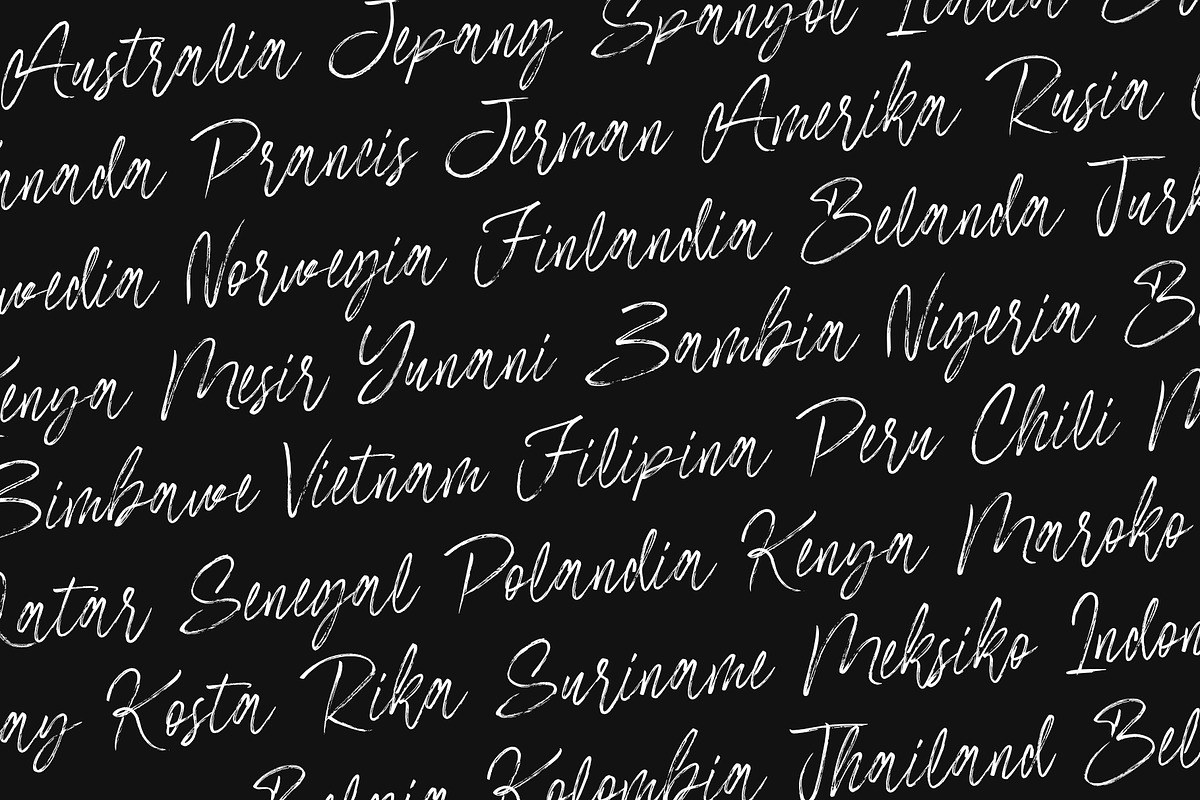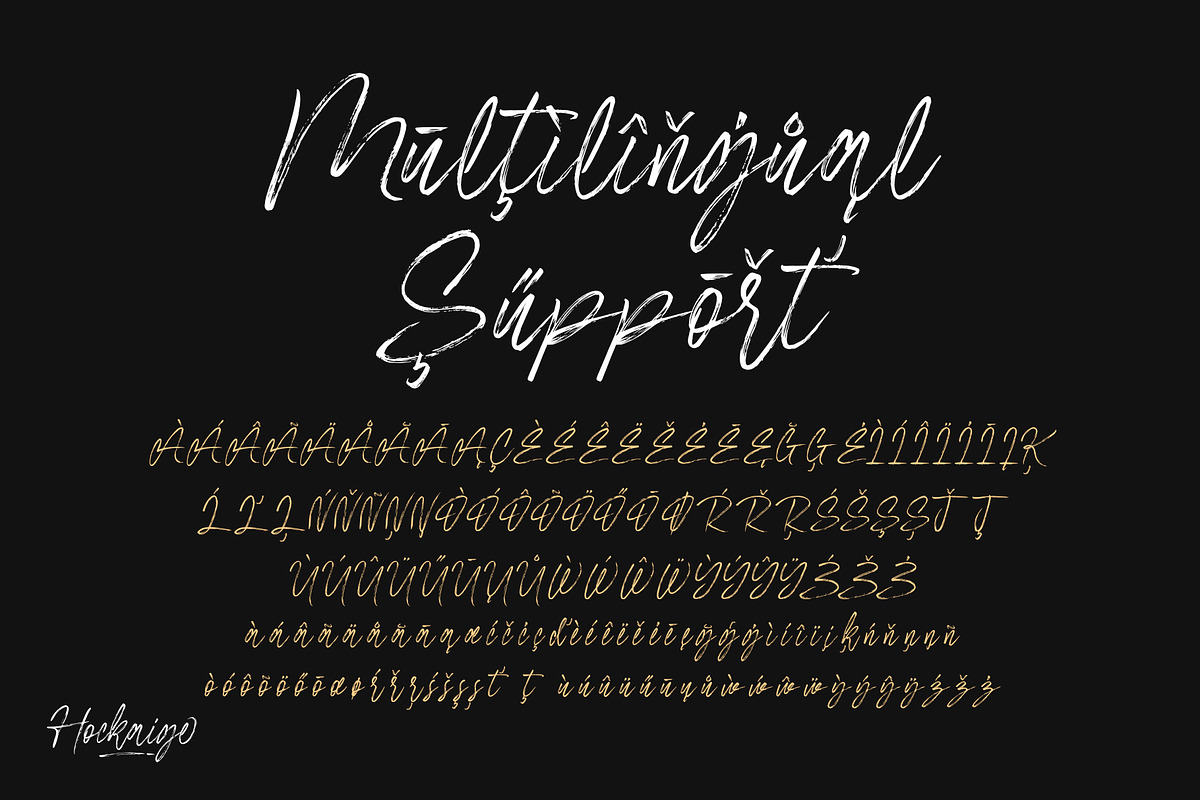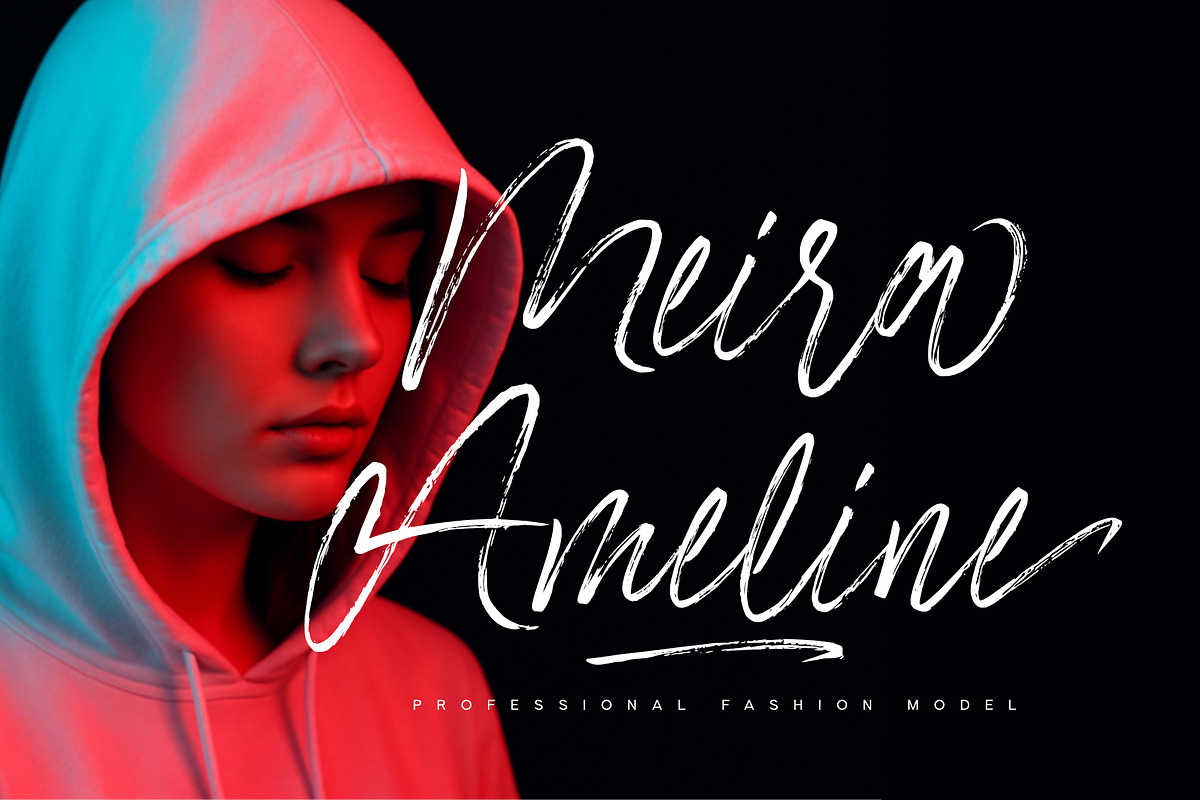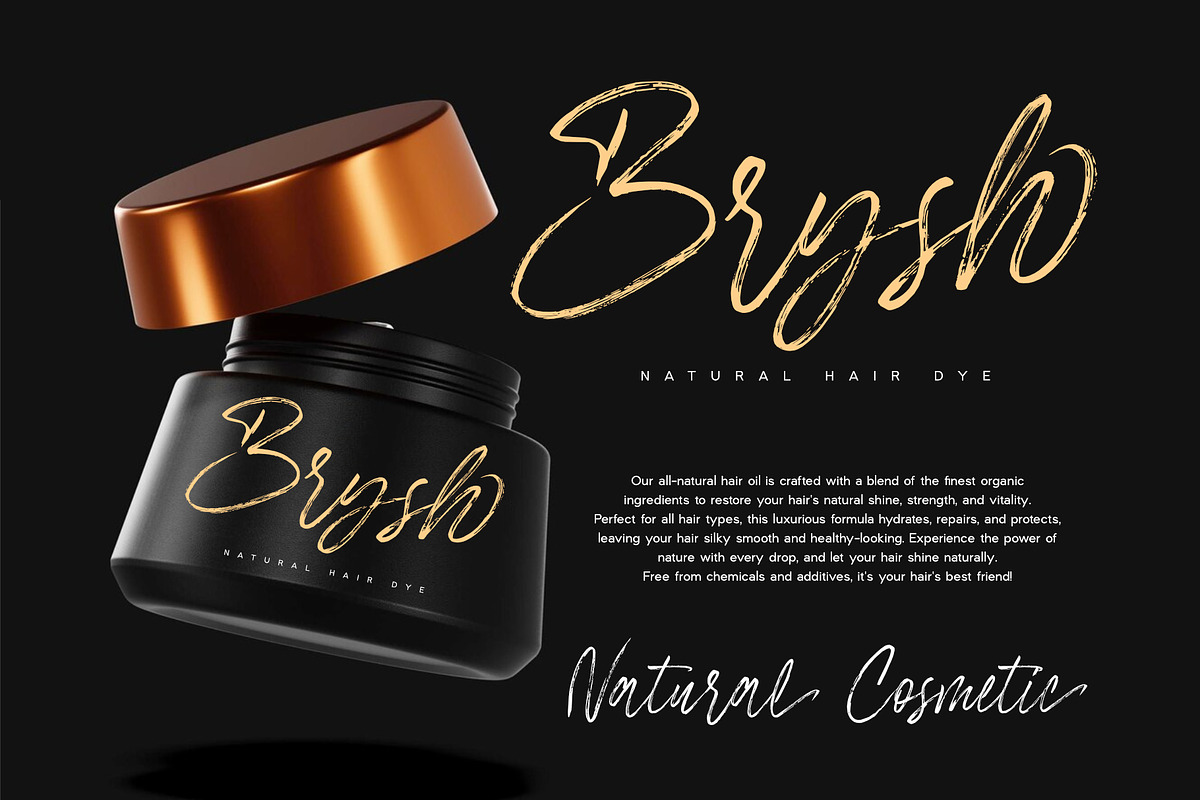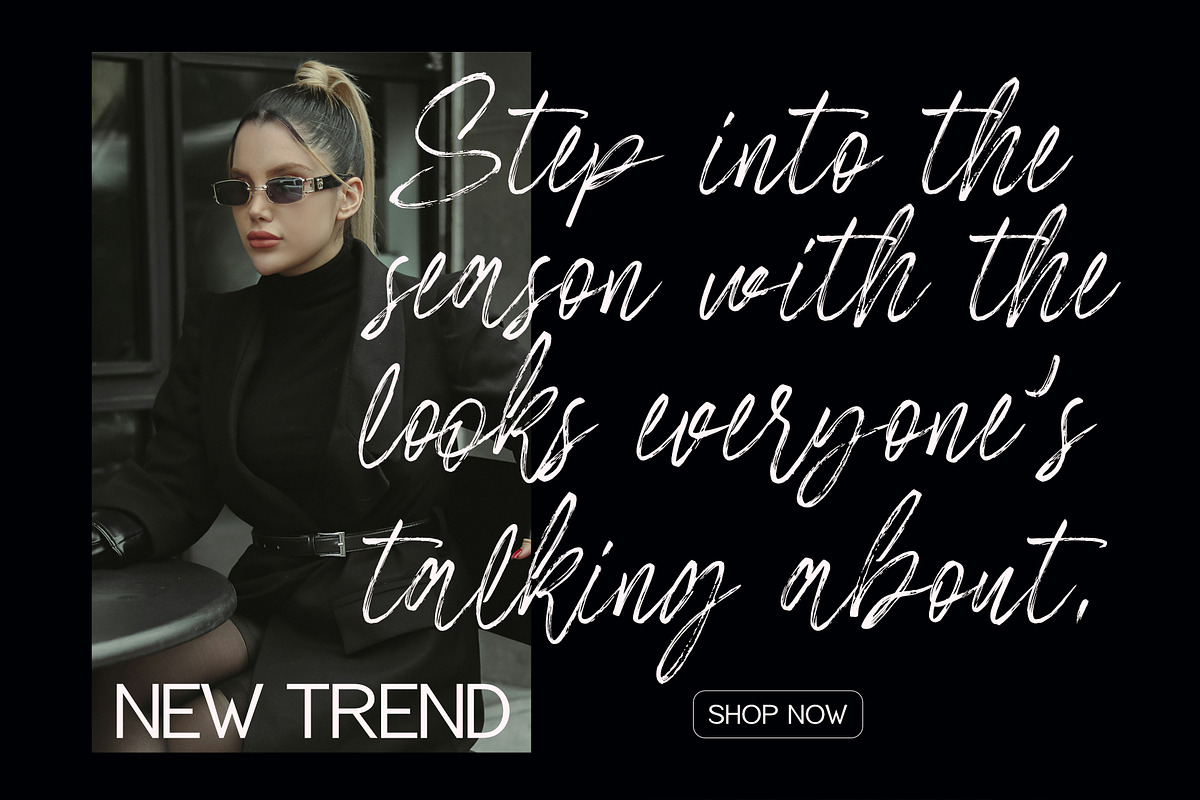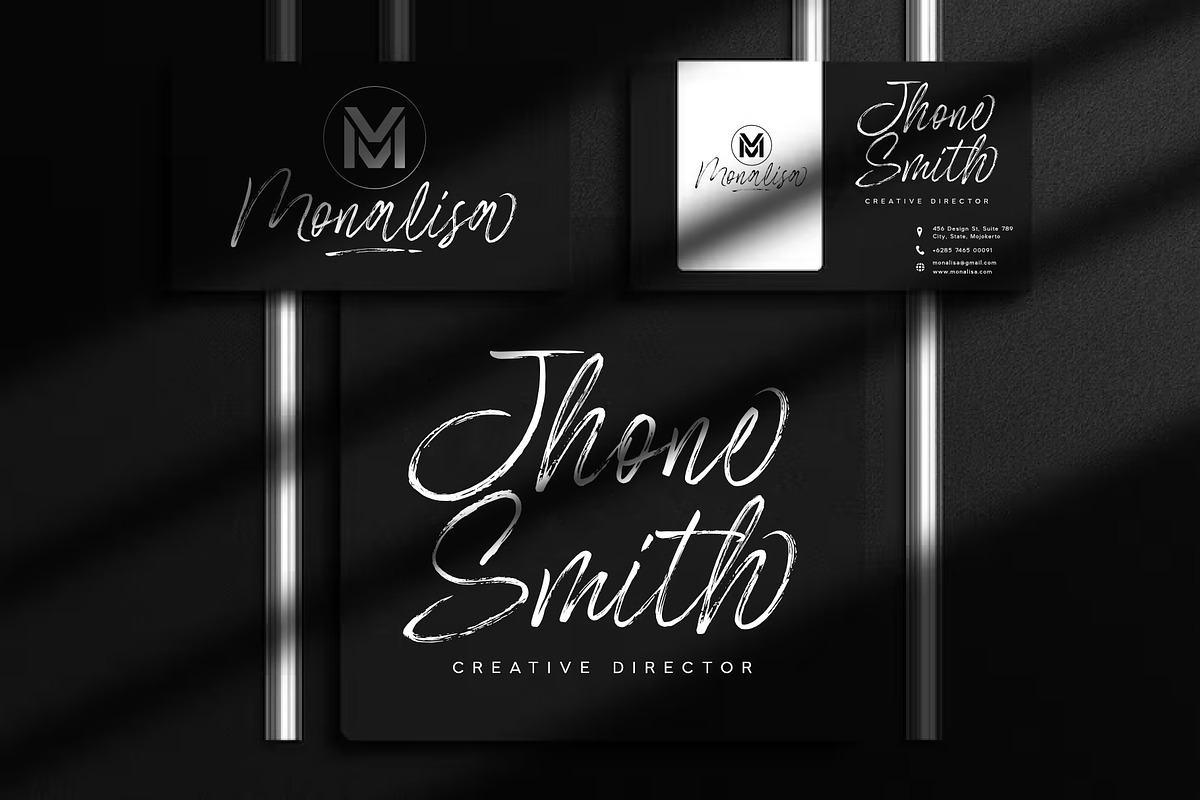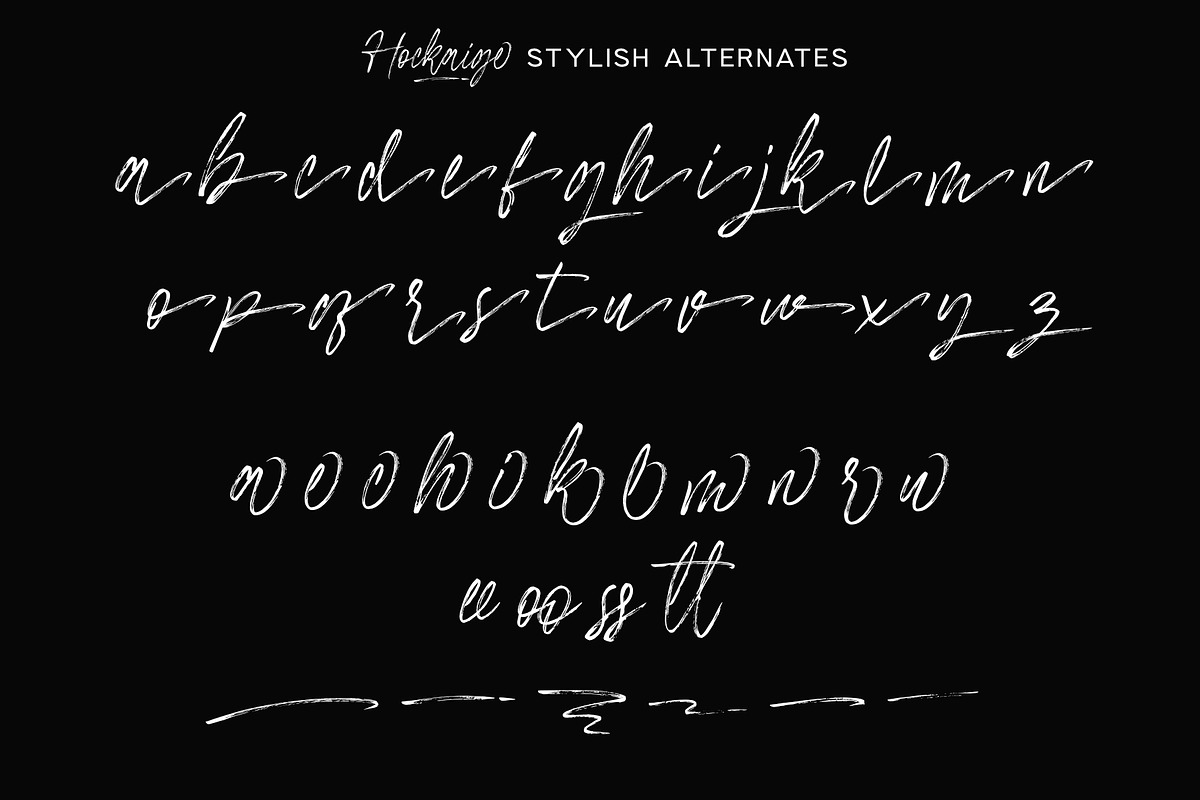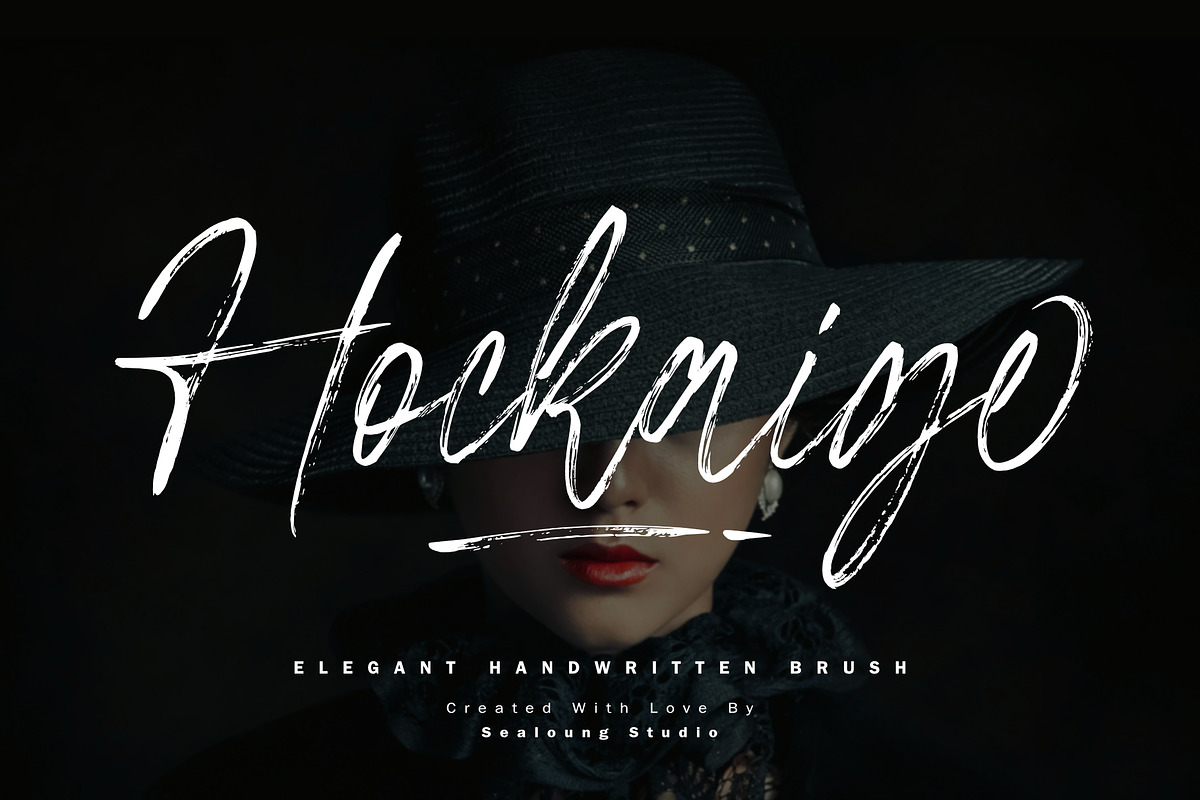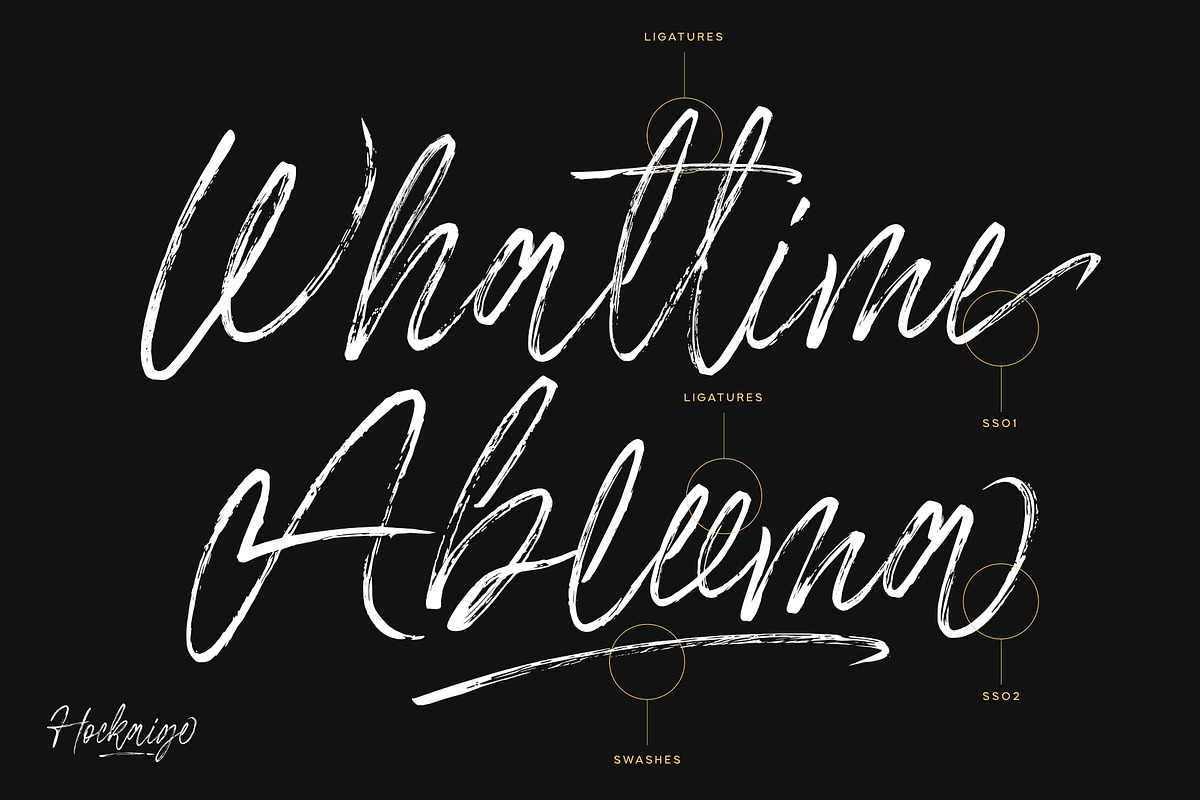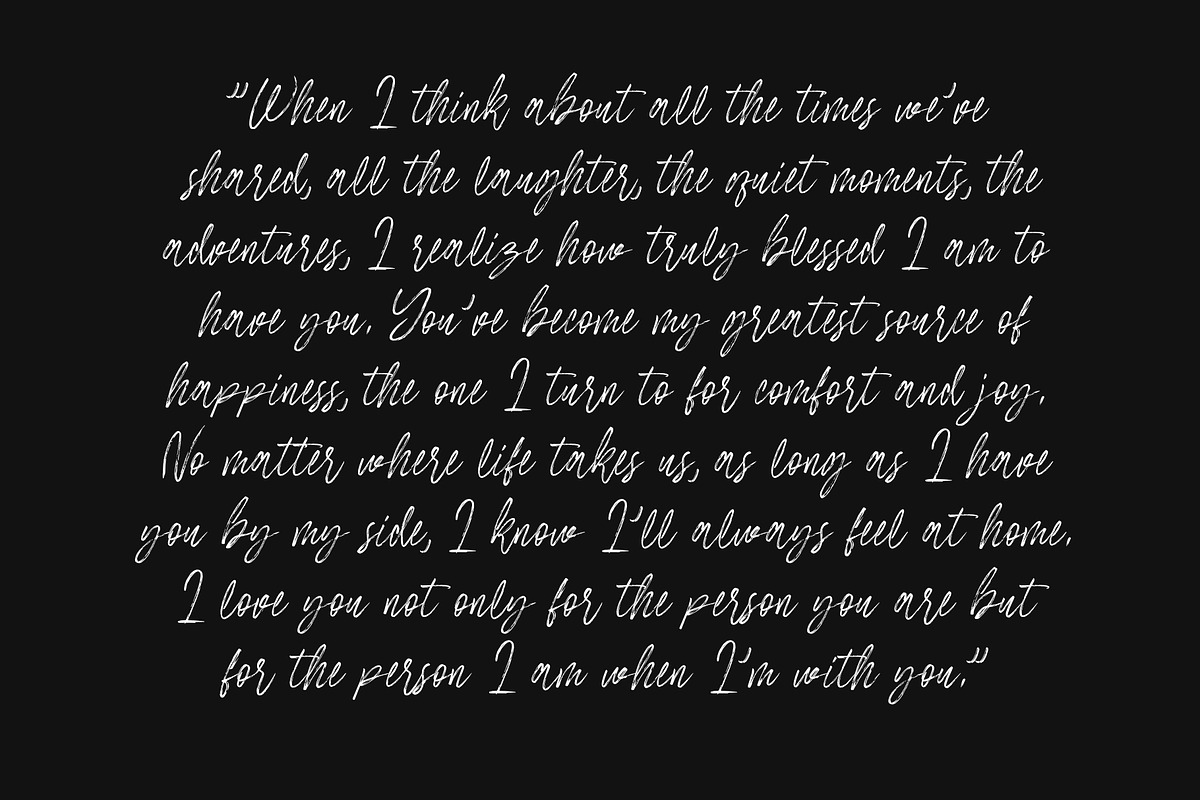
Hockaige - Elegant Handwritten Brush
Hockaige is an elegant handwritten brush font that combines the organic beauty of brushstrokes with a refined and sophisticated design. Its flowing, dynamic curves and delicate brush marks create a harmonious and artistic feel, making it the perfect choice for designs that require a personal, yet polished touch.
Designed with meticulous attention to detail, Hockaige adds authenticity and elegance to your projects. Whether you're creating logos, invitations, branding materials, or creative designs, this font brings a timeless, handcrafted feel that stands out with grace and charm.
Stylish Handwritten Brush Strokes: Fluid, natural strokes with an elegant finish.
Uppercase and Lowercase: Complete alphabet for versatile design use.
Numbers & Punctuation: Full set of numbers and symbols for all types of content.
Elegant and Sophisticated: Ideal for upscale branding, invitations, and creative projects.
Alternates: Multiple stylistic alternates for selected characters, offering more design flexibility and unique looks.
Versatile Application: Perfect for a wide range of design projects across digital and offline media.
Hockaige is the ideal font to elevate your designs with elegance and creativity. With its graceful brush style, added alternates, and versatile file formats, it adapts seamlessly to your creative projects, both online and offline.